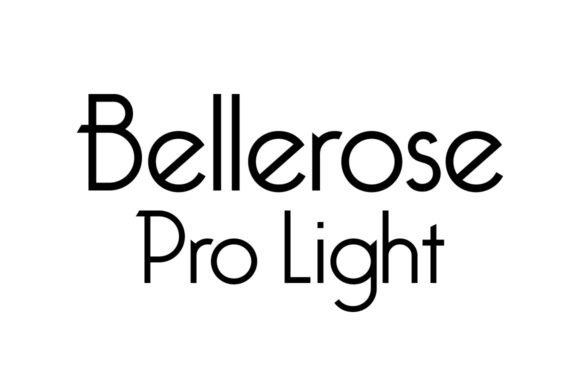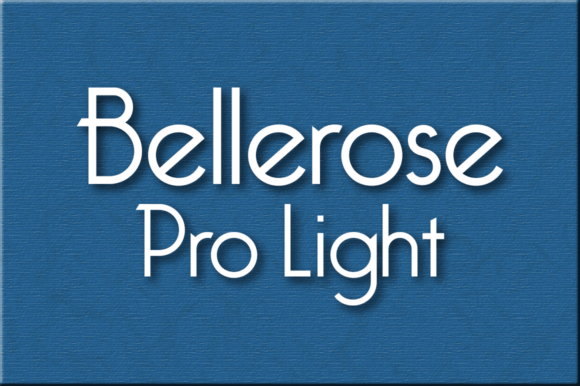
Bellerose Pro Light Font: Elevate Your Designs with Sophistication
In the world of typography, few fonts manage to exude elegance and sophistication like Bellerose Pro Light. This Art Deco-inspired font has made a name for itself in various design realms, from high-end movie credits to charming children’s books, and even in retail packaging and website designs. In this article, we’ll dive into the world of Bellerose Pro Light, exploring its features, applications, and why it’s a must-have for designers and crafters alike.
The Art Deco Inspiration
Bellerose Pro Light draws inspiration from the opulent Art Deco era, characterized by its sleek lines, geometric shapes, and luxurious feel. This font embodies the essence of Art Deco, making it perfect for designs that require a touch of sophistication and glamour. Its elegant appearance is sure to elevate any project, whether it’s a movie title sequence, a children’s book, or a high-end brand’s packaging.
Universal Appeal
One of the standout features of Bellerose Pro Light is its universal appeal. This font has been used in a wide range of applications, from high-profile movie credits to children’s books, and even in retail packaging and website designs. Its versatility makes it an excellent choice for designers who need a font that can adapt to different styles and genres. Whether you’re working on a luxury brand’s website or a children’s book, Bellerose Pro Light is sure to make a lasting impression.
Typography Finesse
Bellerose Pro Light boasts exceptional typography finesse, making it perfect for designs that require attention to detail. Its sleek lines and carefully crafted letterforms ensure that your text is not only readable but also visually stunning. This font is ideal for designers who want to add a touch of sophistication to their work without sacrificing legibility.
Applications of Bellerose Pro Light
Bellerose Pro Light’s versatility makes it suitable for a wide range of applications, including:
- Movie Credits: Add a touch of glamour to your movie title sequences with Bellerose Pro Light’s elegant and sophisticated appearance.
- Children’s Books: Charm young readers with Bellerose Pro Light’s playful and engaging typography.
- Retail Packaging: Elevate your brand’s packaging with Bellerose Pro Light’s luxurious feel and sleek lines.
- Website Designs: Add a touch of sophistication to your website designs with Bellerose Pro Light’s exceptional typography finesse.
Why Choose Bellerose Pro Light?
With so many fonts available, why choose Bellerose Pro Light? Here are just a few reasons why this font stands out:
- Elegance: Bellerose Pro Light exudes elegance and sophistication, making it perfect for high-end designs.
- Versatility: This font can be used in a wide range of applications, from movie credits to children’s books.
- Typography Finesse: Bellerose Pro Light boasts exceptional typography finesse, ensuring that your text is both readable and visually stunning.
In conclusion, Bellerose Pro Light is a sophisticated, Art Deco-inspired font that is sure to elevate your designs. Its universal appeal, typography finesse, and versatility make it a must-have for designers and crafters alike. Whether you’re working on a high-end brand’s packaging or a children’s book, Bellerose Pro Light is the perfect choice. With its elegant appearance and exceptional typography, this font is sure to make a lasting impression.